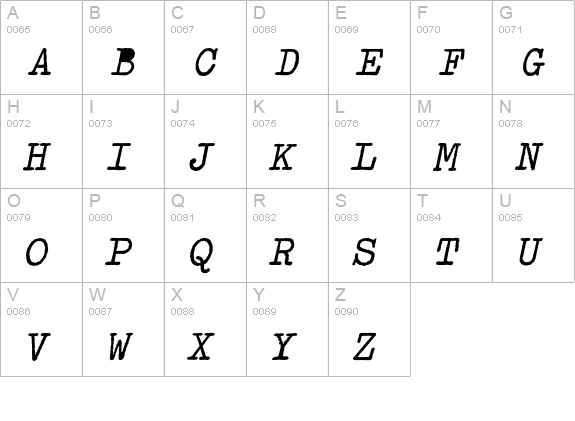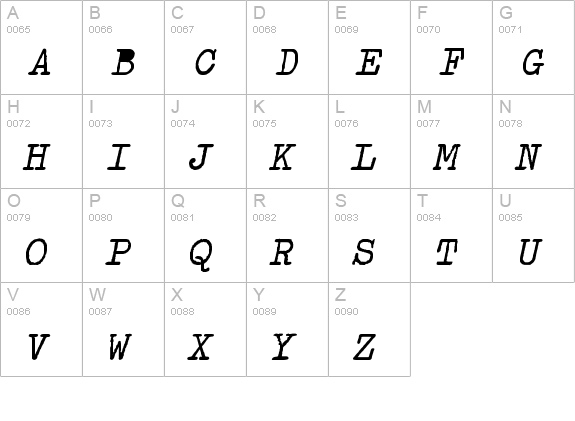
OldTypewriterEF-ExBoldObl Font Details
OldTypewriterEF-ExBoldObl is a unique and distinctive font that captures the essence of vintage typewriters. With its bold and oblique style, this font exudes a sense of nostalgia and authenticity, making it a perfect choice for projects that require a touch of retro charm. The font features a sturdy and solid design, reminiscent of classic typewriter keys, yet with a modern twist that sets it apart. Its bold weight adds a sense of strength and presence, making it ideal for headlines, titles, and other attention-grabbing text. OldTypewriterEF-ExBoldObl is a versatile font that can be used across a variety of design projects, from posters and flyers to branding and packaging. Its oblique angle adds a dynamic and energetic feel to the text, making it stand out and draw the viewer's eye. Best of all, OldTypewriterEF-ExBoldObl is available for free download at FontsMarket.com, making it accessible to designers and creatives looking to add a touch of vintage flair to their work. Don't miss out on this unique and stylish font that will bring a touch of old-world charm to your designs.